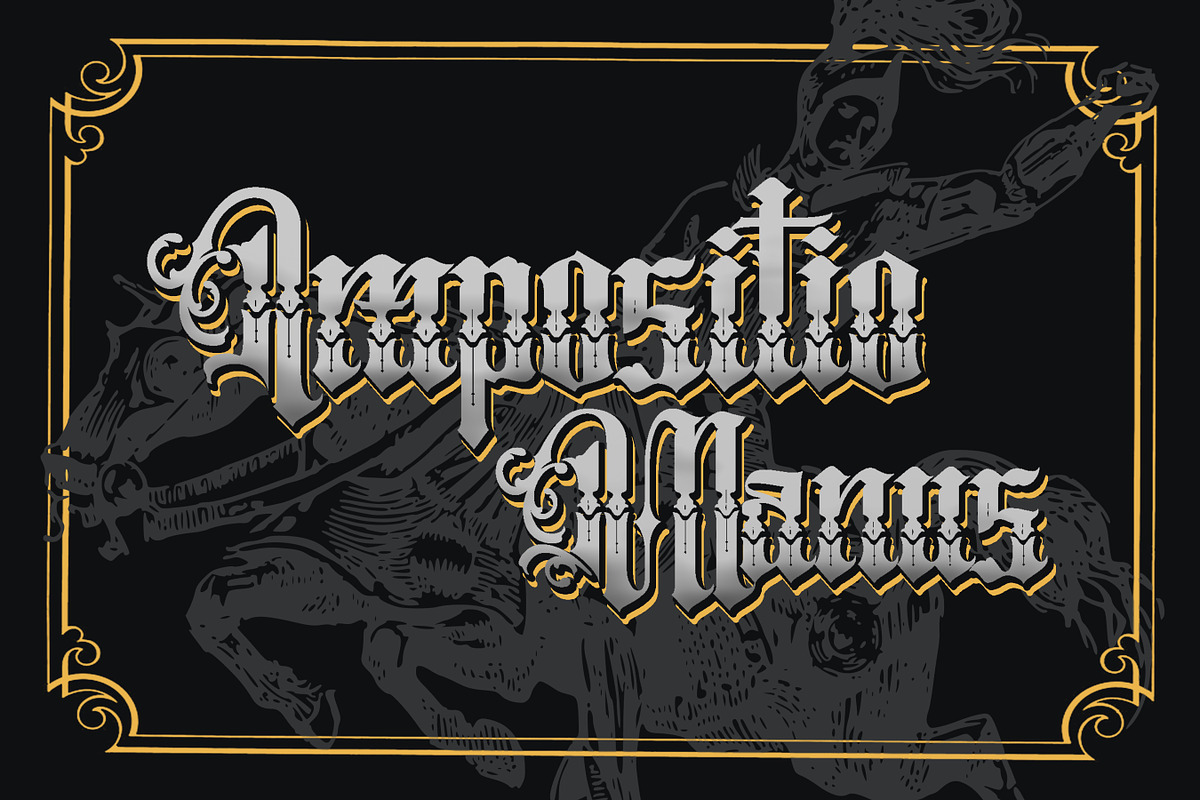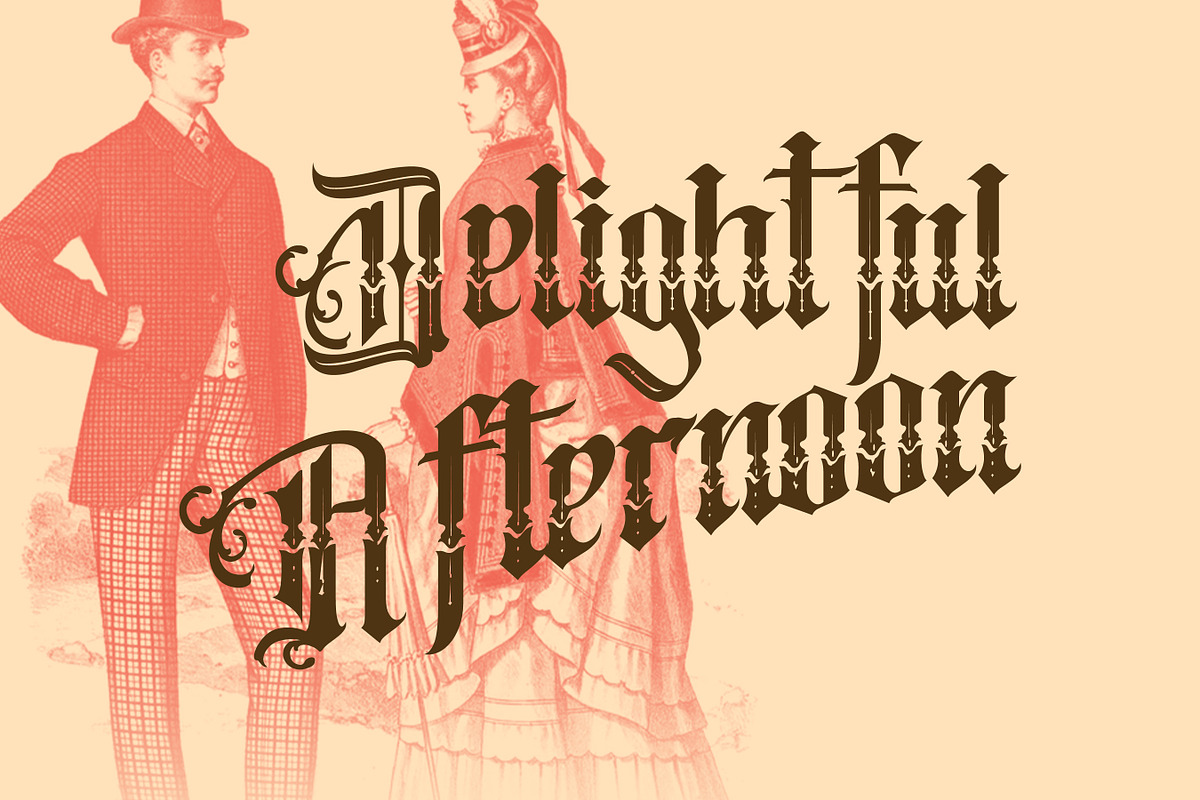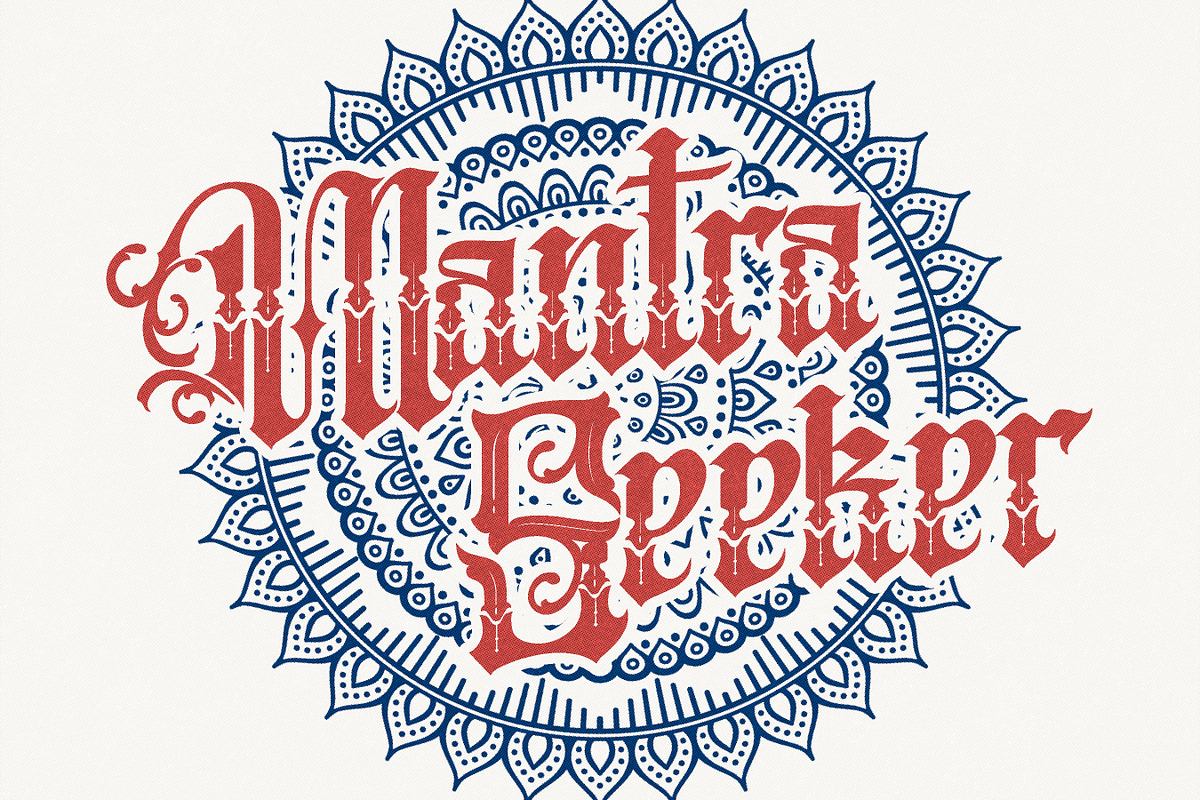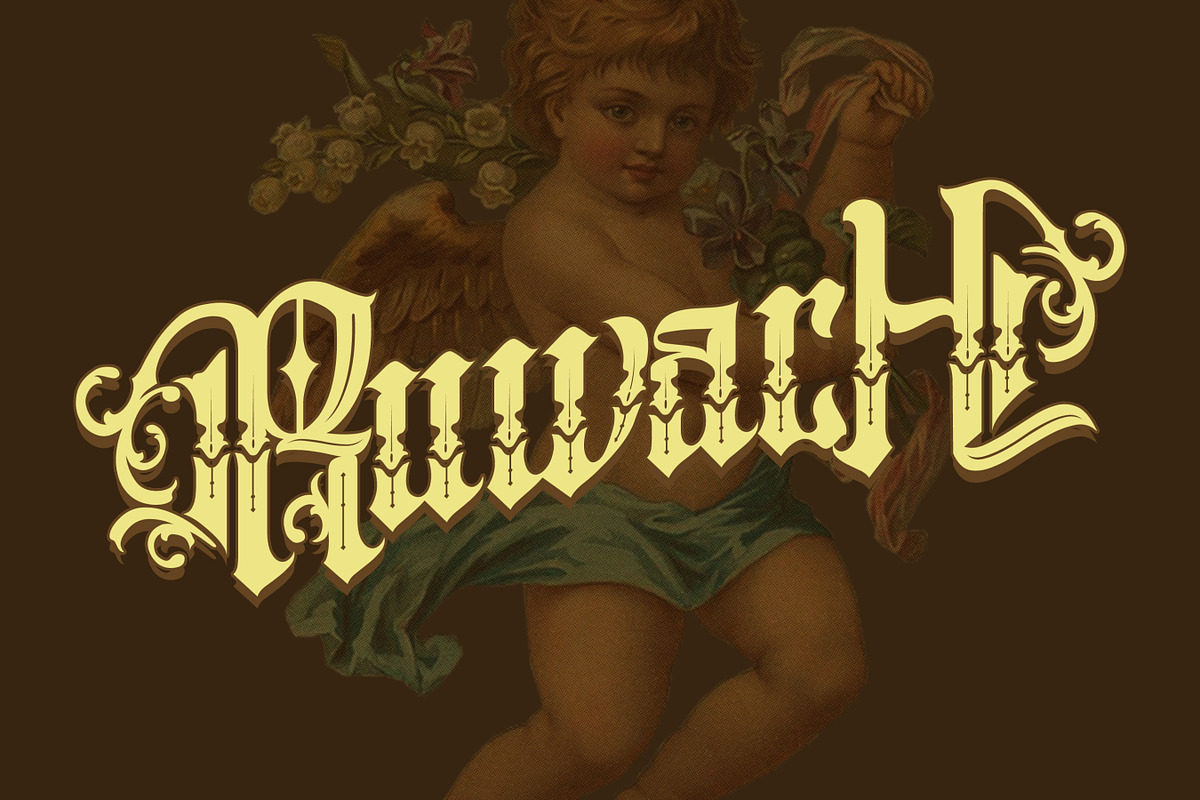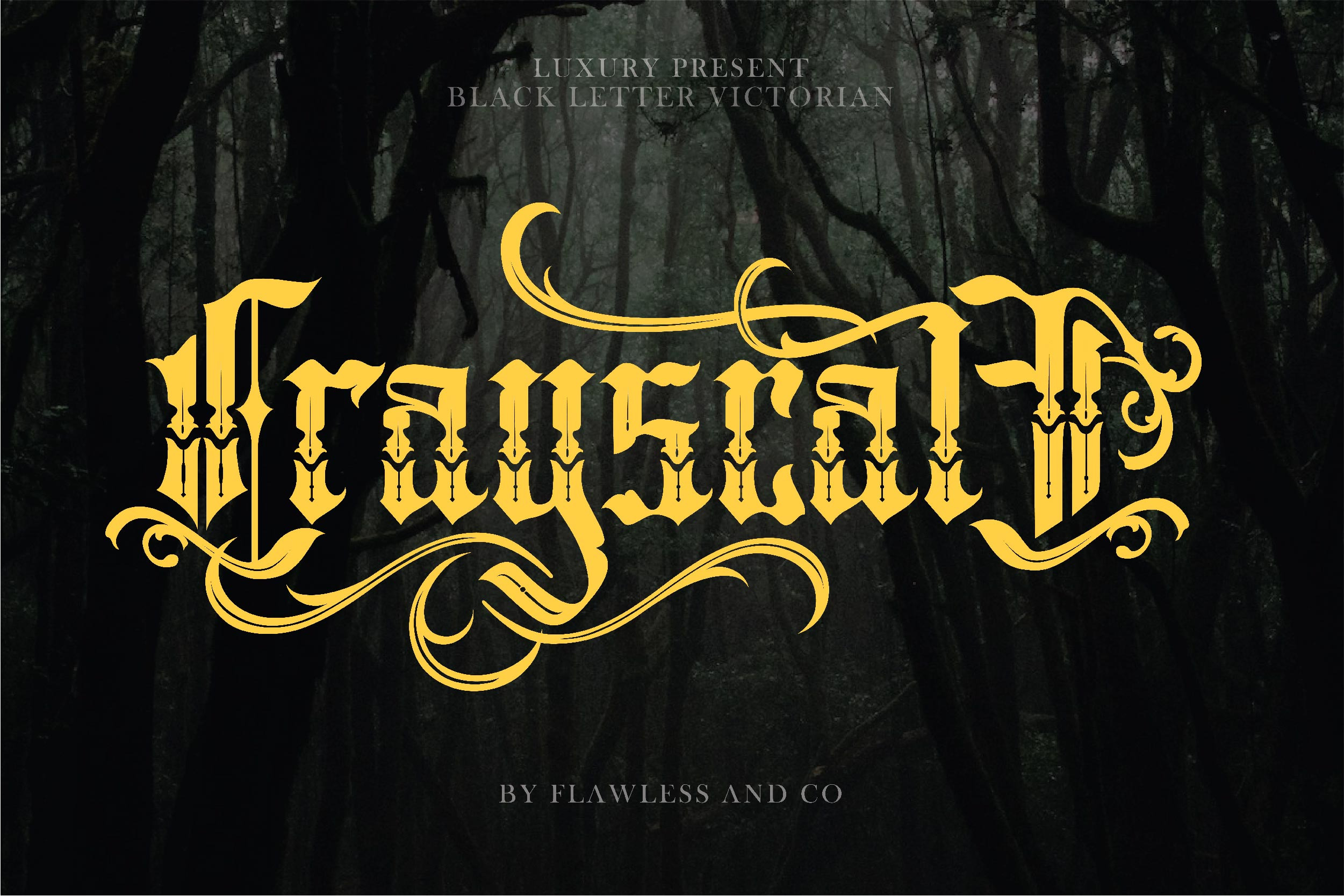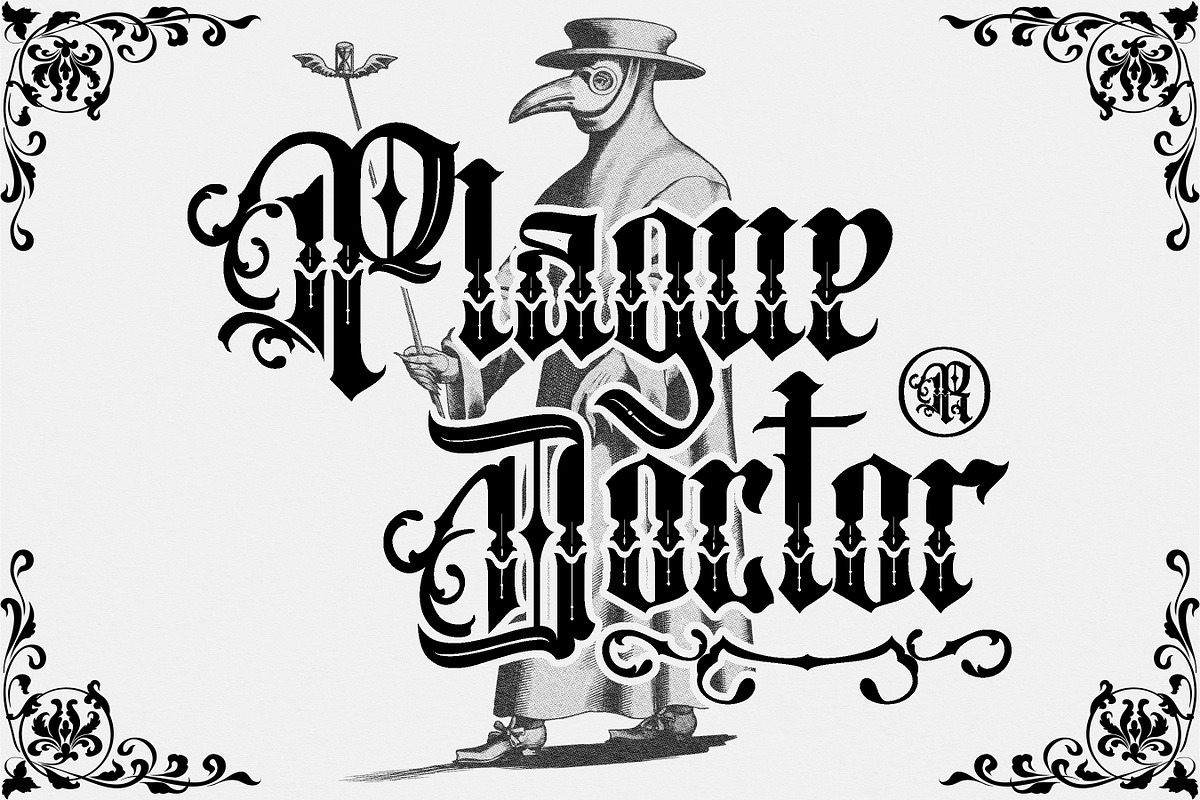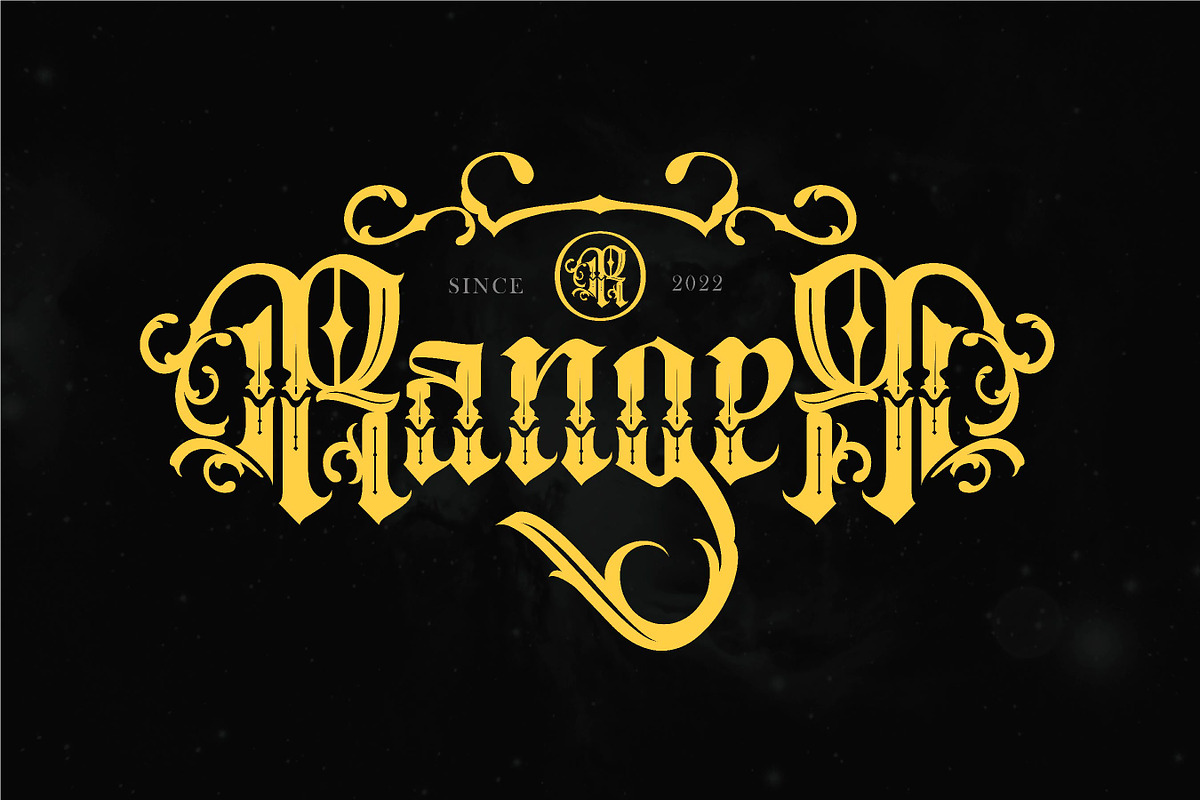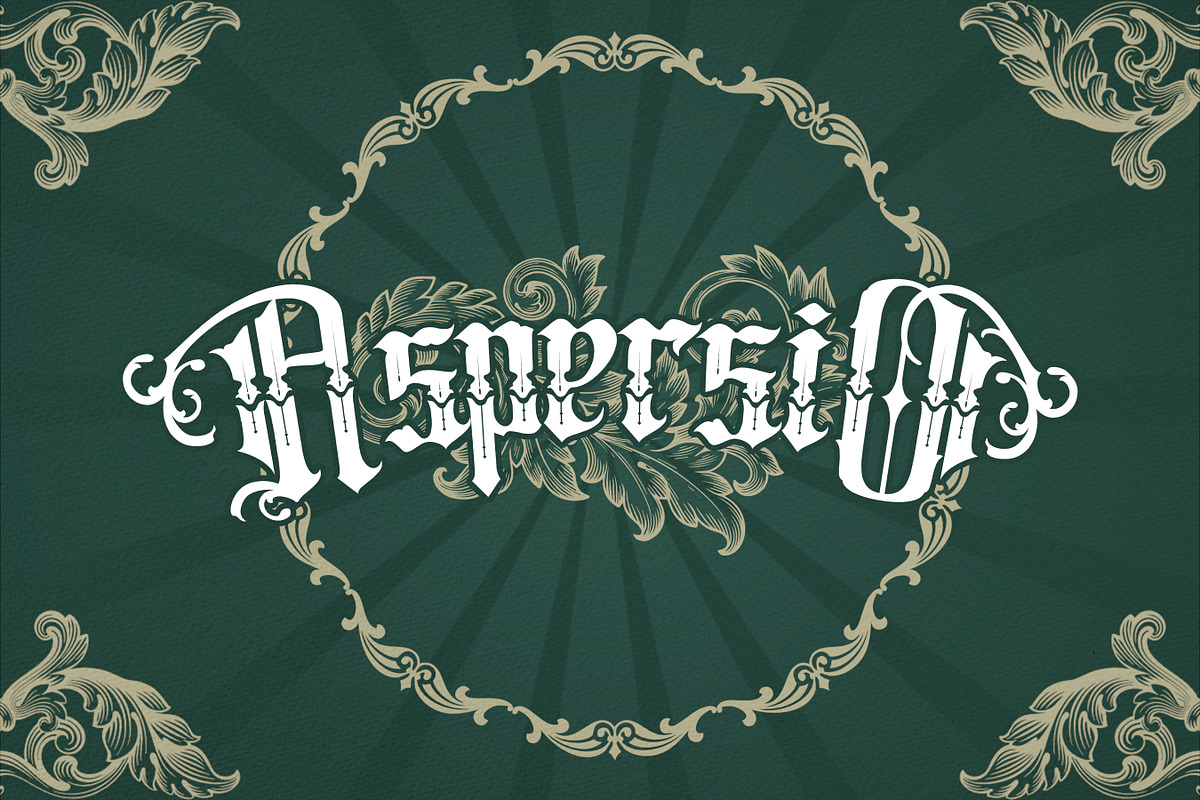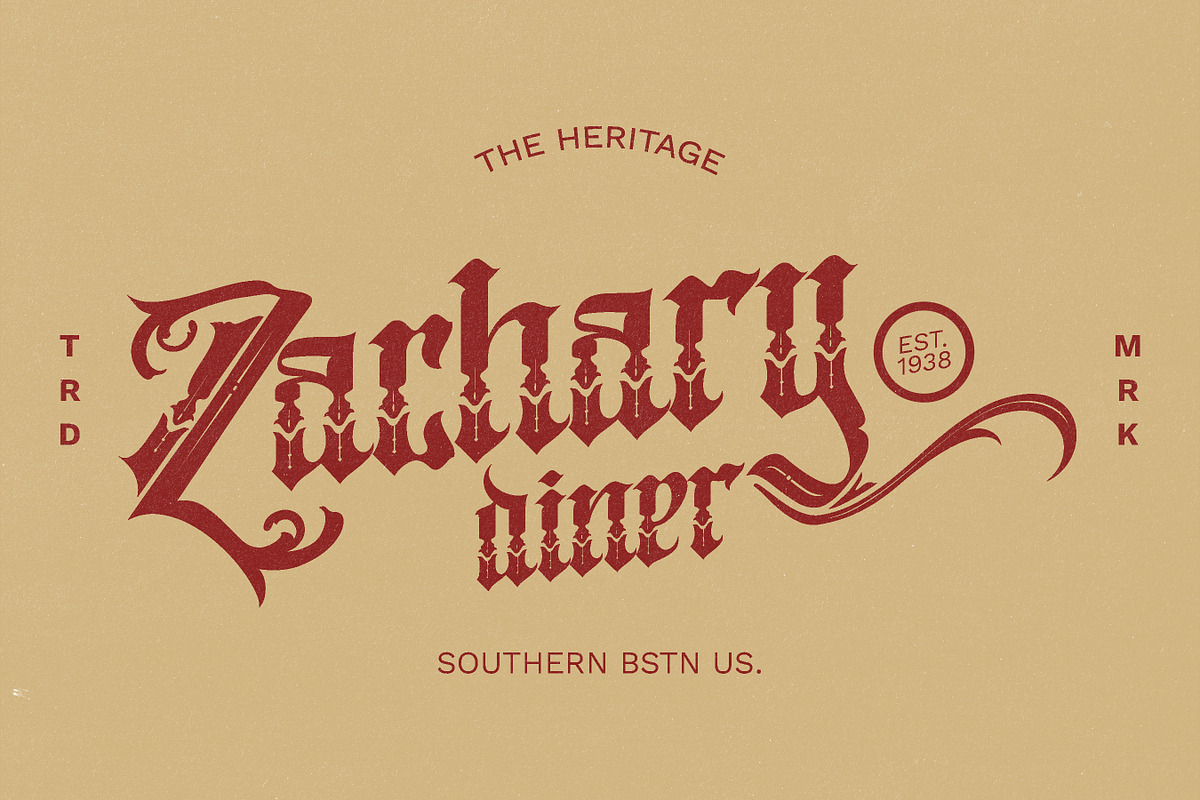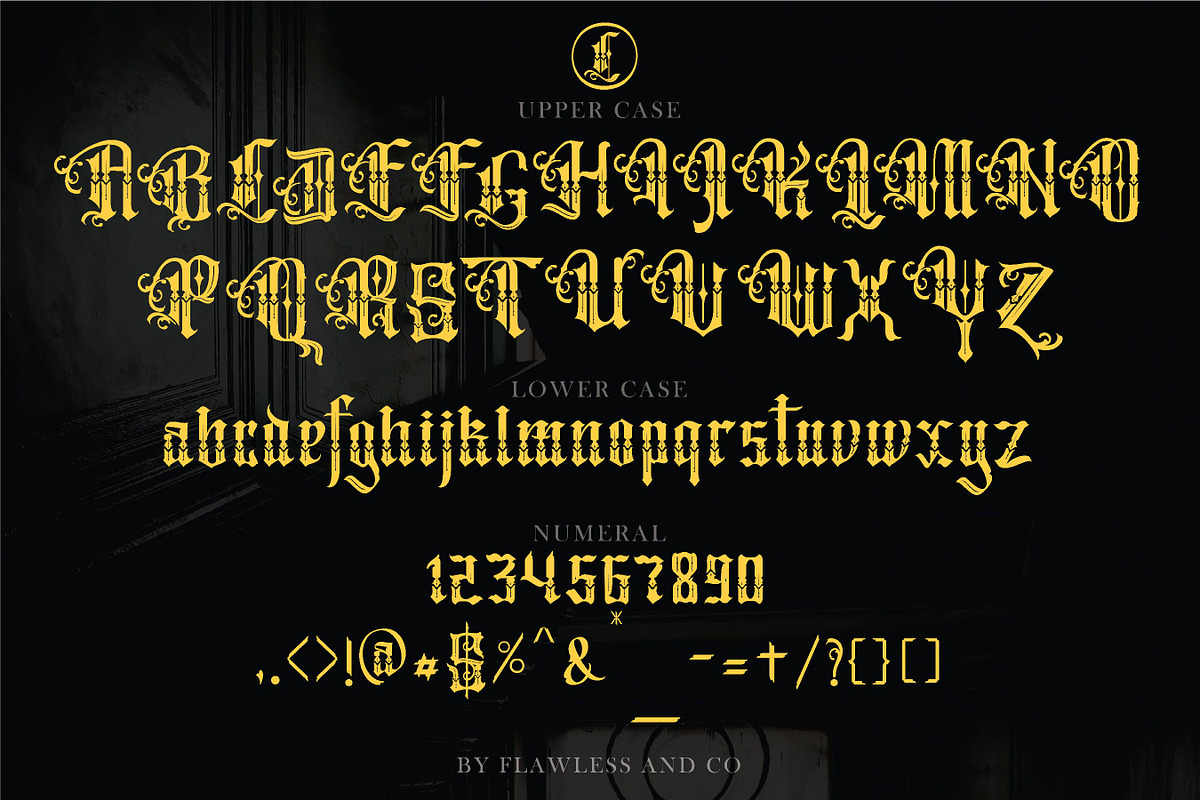
Crayscale-Blackletter Victorian Font
Introducing "Crayscale" - a captivating blackletter Victorian font that exudes elegance and timeless charm. Inspired by the ornate lettering styles of the Victorian era, Crayscale is meticulously crafted to bring a touch of vintage sophistication to your designs. This font is suitable for tattoos, branding, business, logos, magazines, and others.